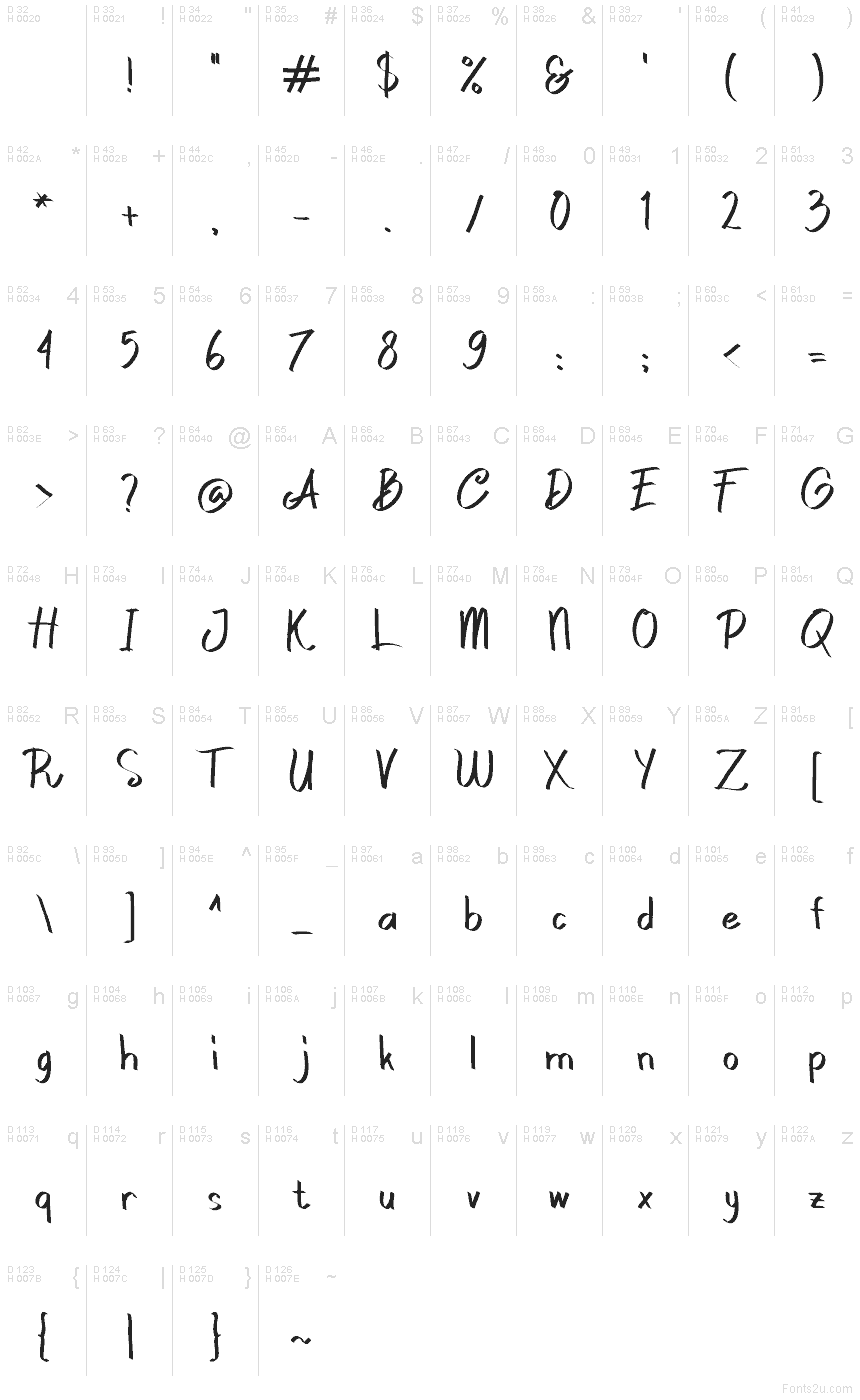
GakRewel
GakRewel font is a handwriting font by Studio Hello Good, and as such, reproducing an actual handwriting in digital display is easy with it. The beautiful script features thin strokes and little to no distinction between letters allowing for an instant connection. It will give your designs the artistic flair that they deserve in a manner both unique and strange.